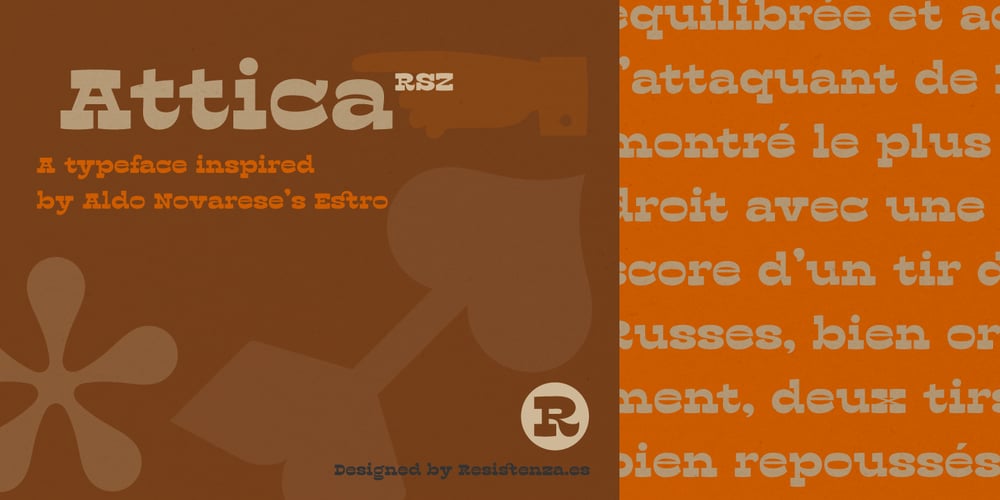
Attica Font Family was designed by Giuseppe Salerno and published by Resistenza. Attica contains 3 styles and family package options. Attica is a striking slab typeface, characterised by its inverted contrast, which pays homage to the elegance of Caslon’s Italian type and the boldness of Aldo Novarese’s Estro.Inspired by the charm of wood typefaces, the creation of Attica began with a vision to revive the timeless appeal of traditional letterpress printing. Each letter of the alphabet was meticulously crafted using a flat, long brush, infusing the typeface with a sense of artisanal authenticity and handcrafted finesse. As the design process unfolded, the complete character set emerged, reflecting a harmonious balance between historical influence and contemporary design sensibilities.One of Attica’s defining features is its extensive collection of icons and dingbats, adding versatility and creative potential to any design project. Whether conveying a message or enhancing visual storytelling, these graphical elements offer a wealth of expressive possibilities, further enriching the typographic experience.Attica is available in three distinct versions: regular, rounded, and rough, each offering a unique aesthetic appeal to suit diverse design needs. The regular variant exudes a timeless elegance, while the rounded version softens the edges, imbuing the typeface with a playful charm. On the other hand, the rough rendition adds a touch of rugged authenticity, evoking the tactile feel of aged woodblock printing.With its versatile design and rich heritage, Attica stands as a testament to the enduring legacy of typographic craftsmanship. Whether used in editorial layouts, branding collateral, or digital interfaces, Attica offers designers a powerful tool to elevate their creative expressions and captivate audiences with its distinctive charm and character.More About Opentype Features: https://bit.ly/opentype-rsz